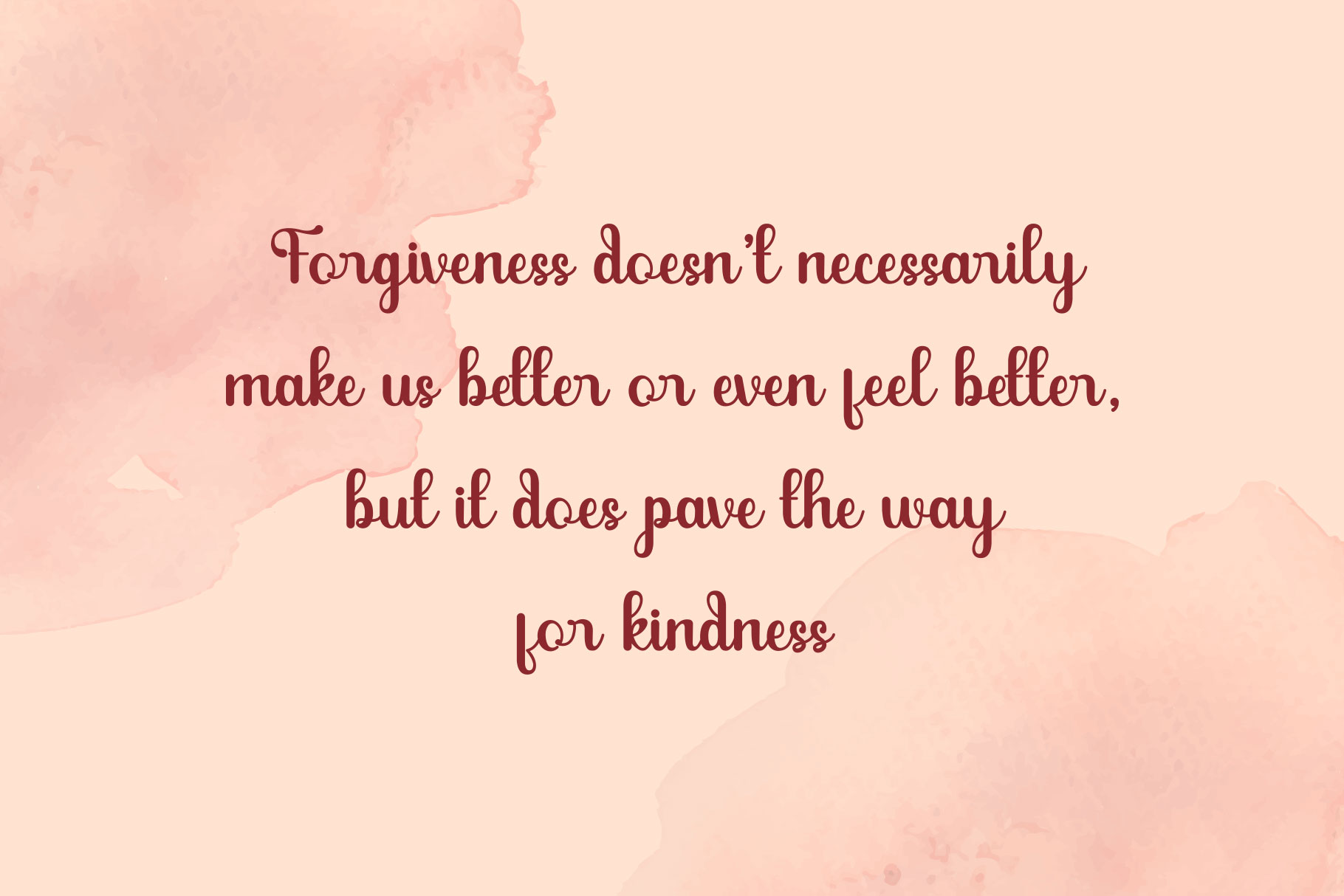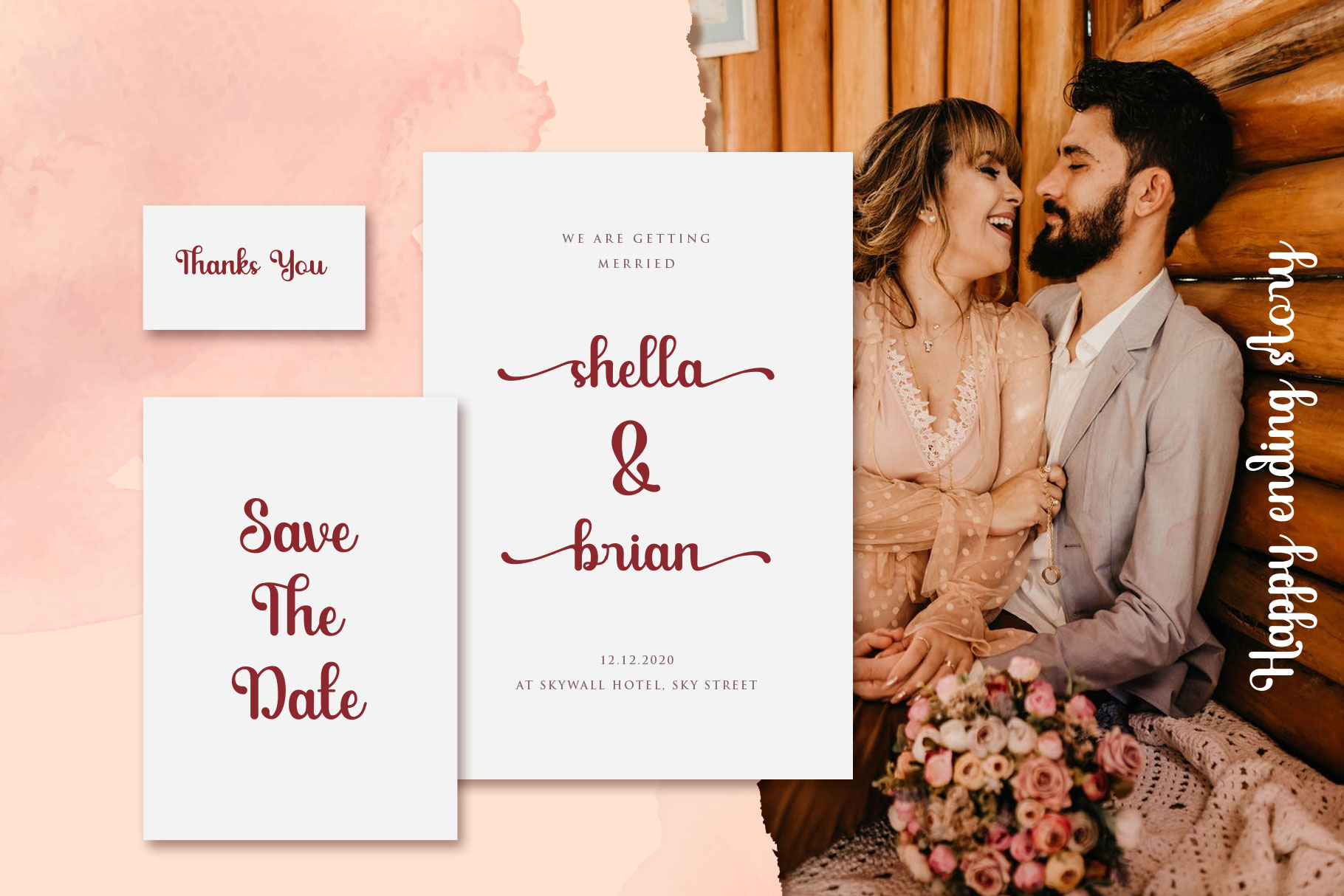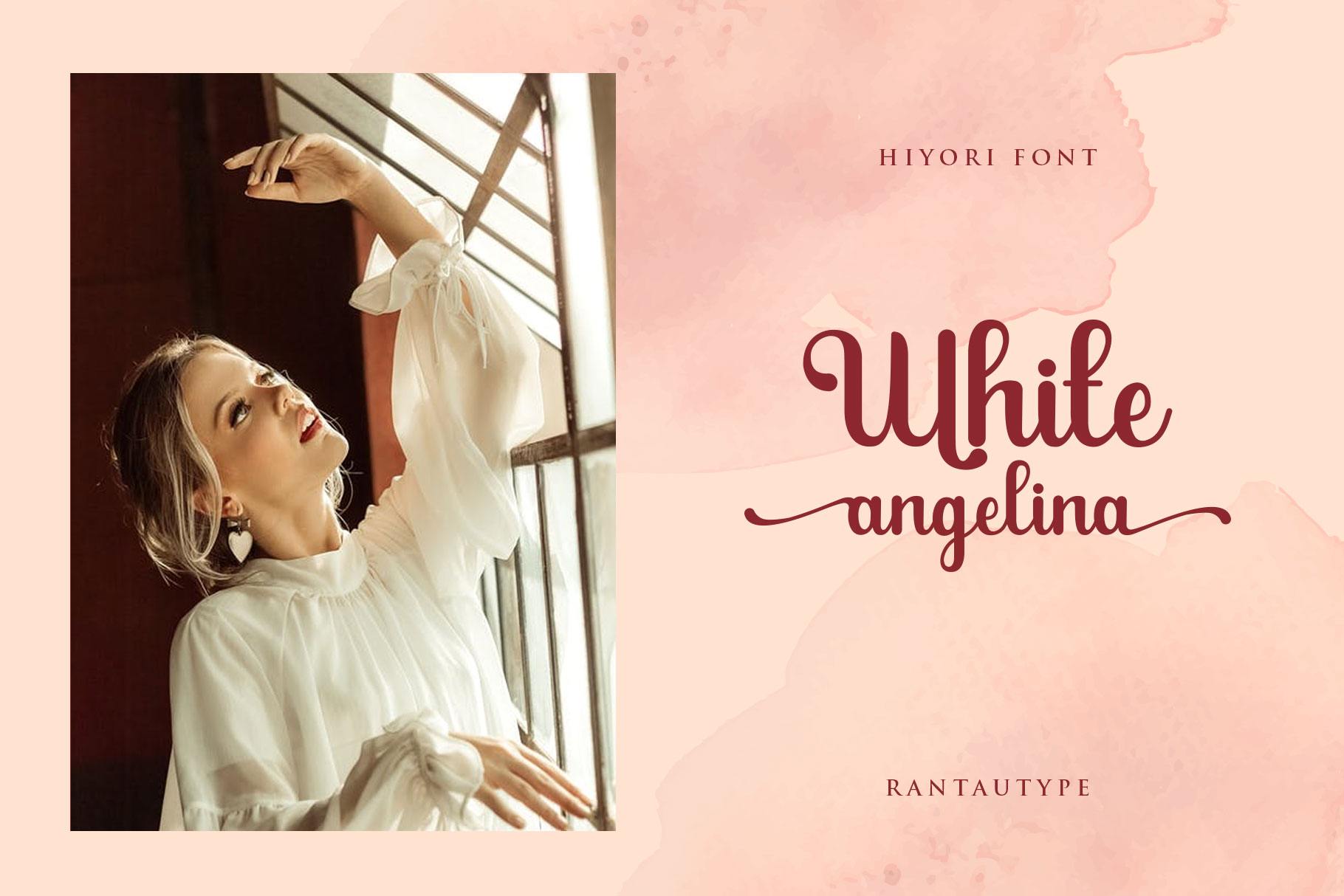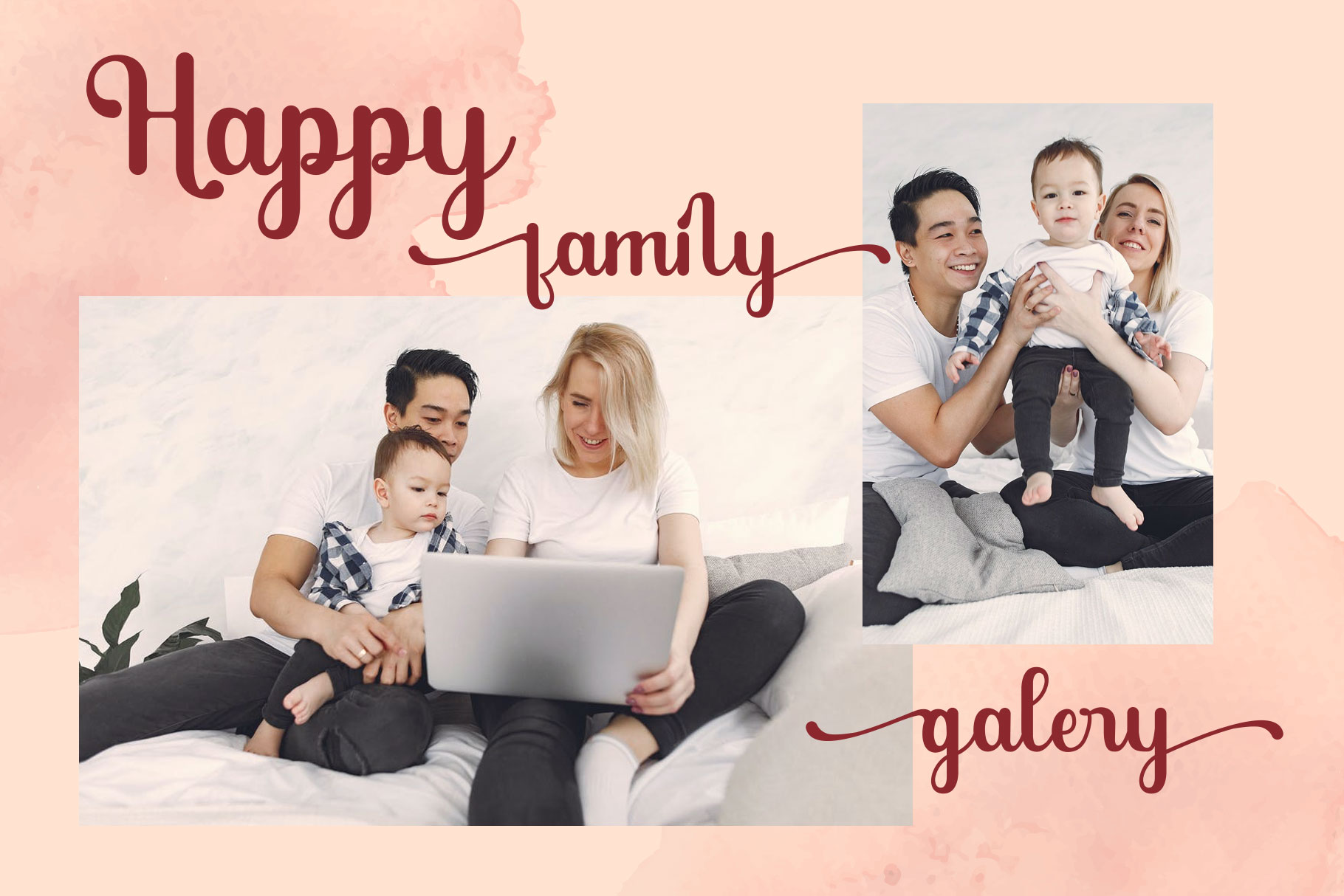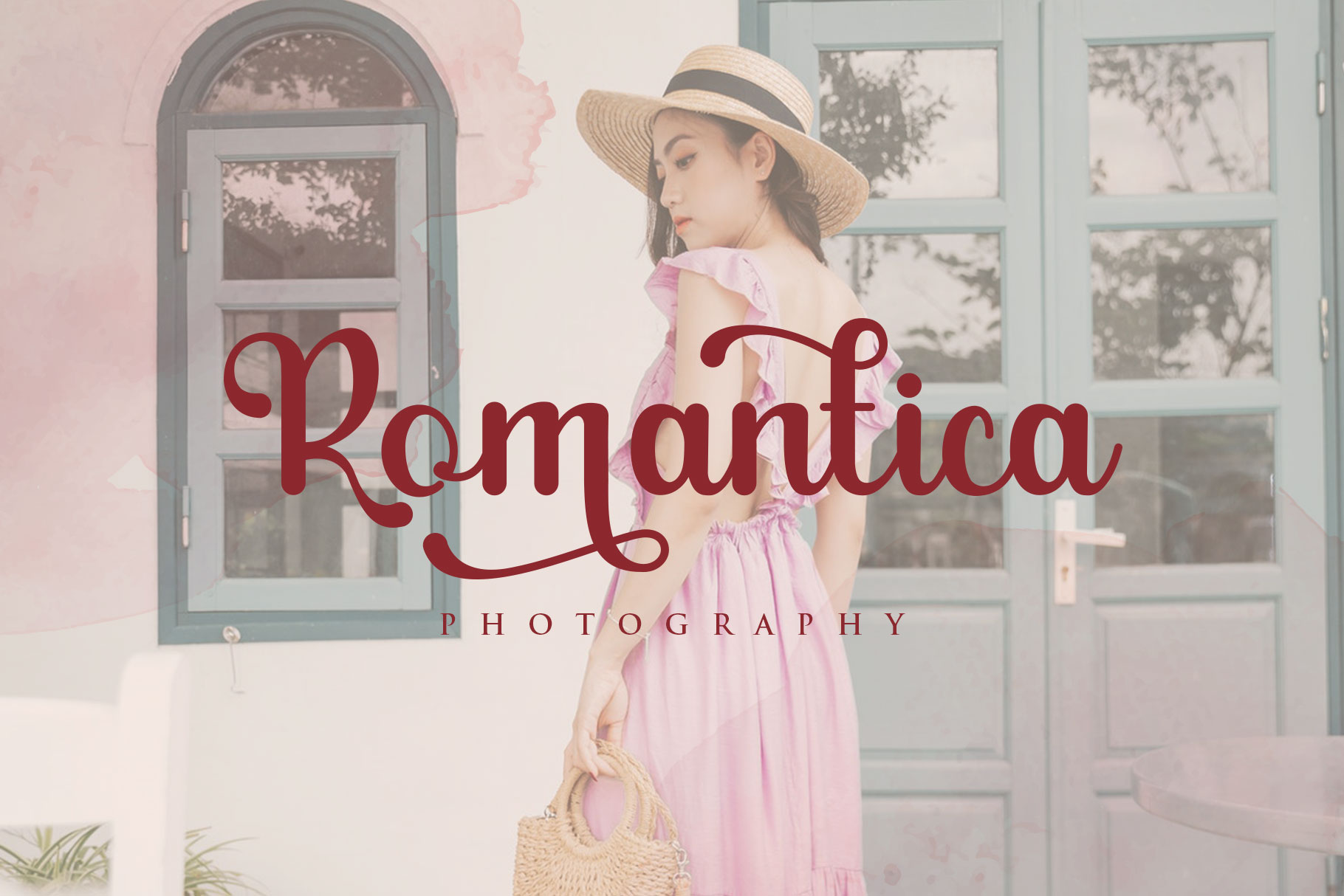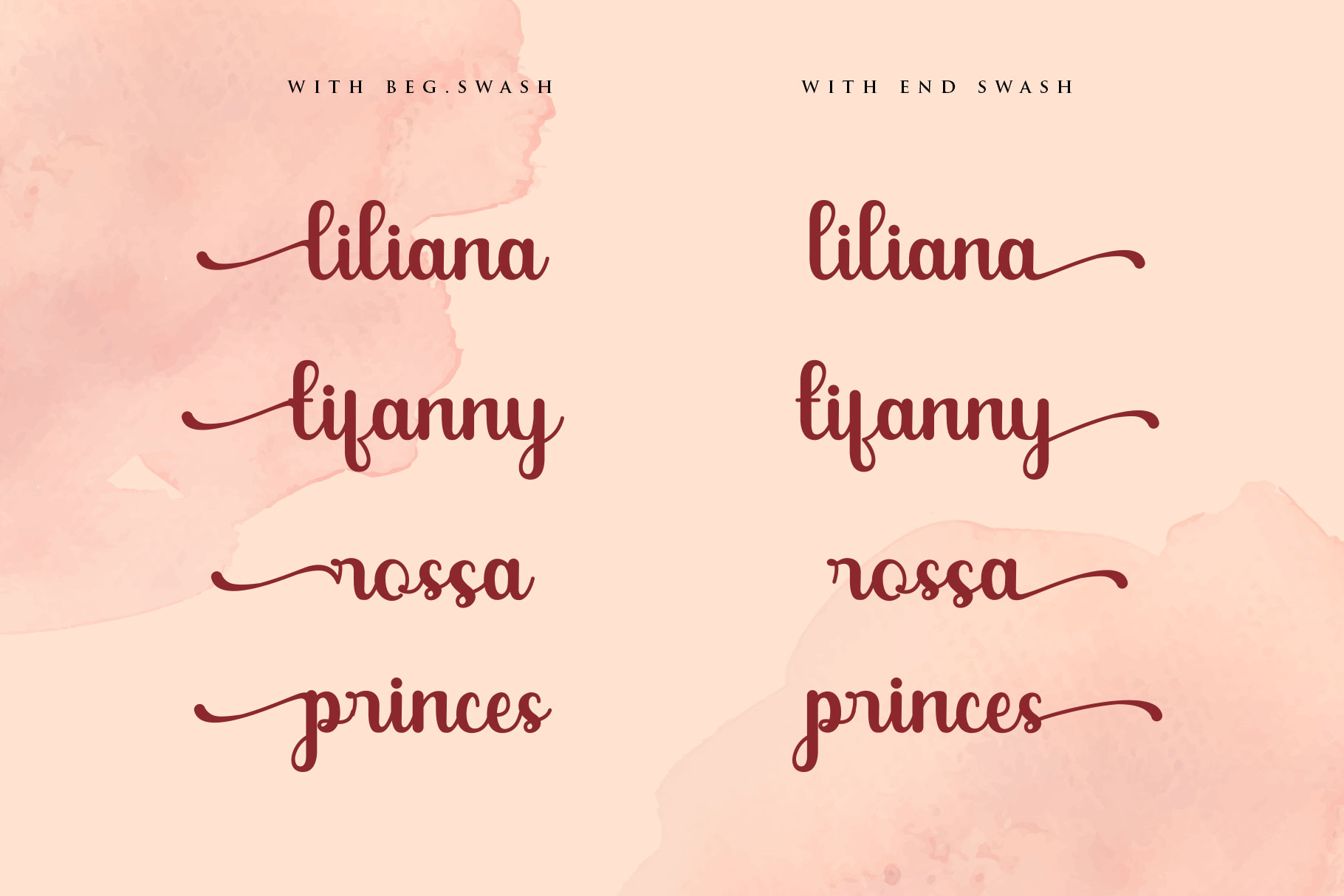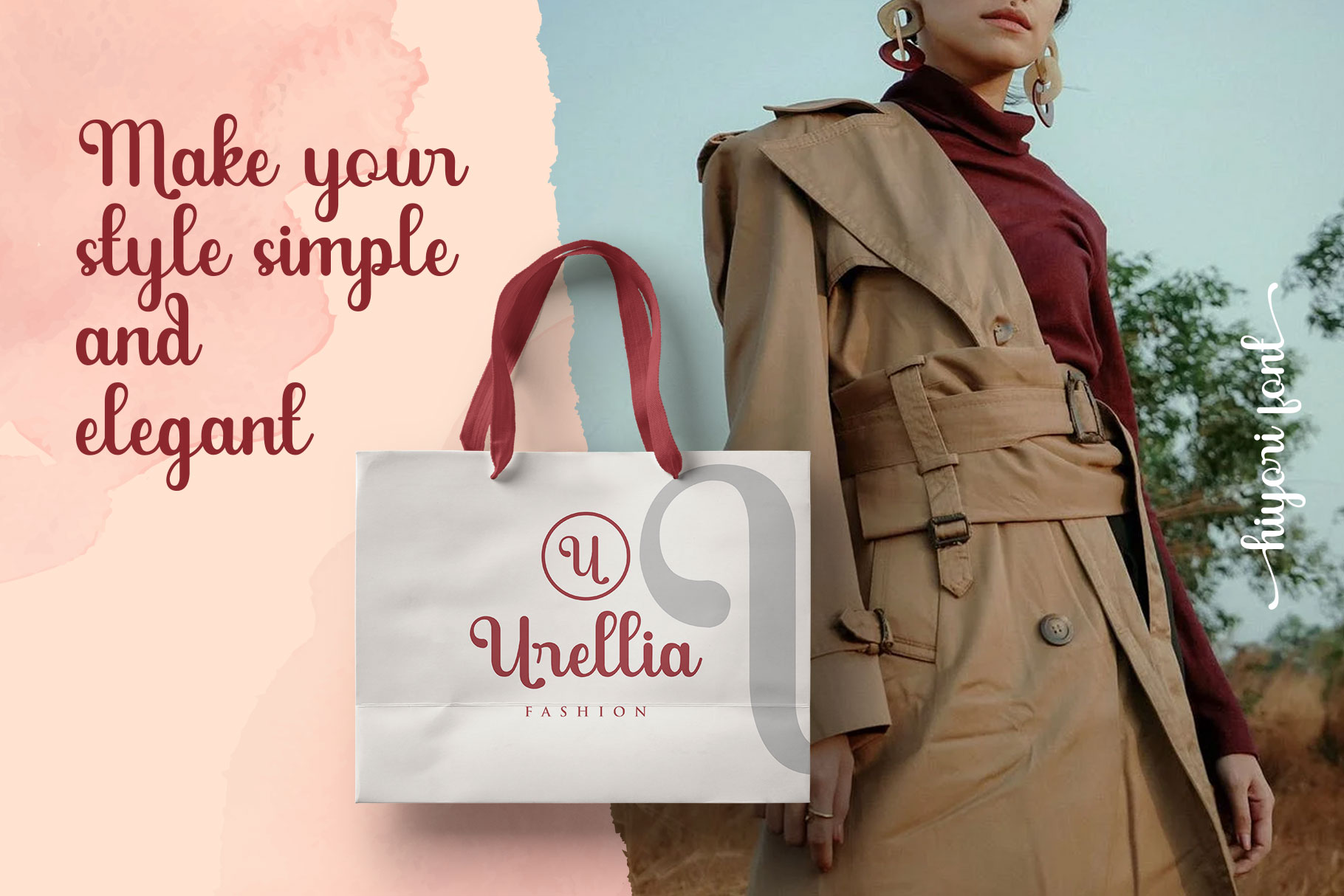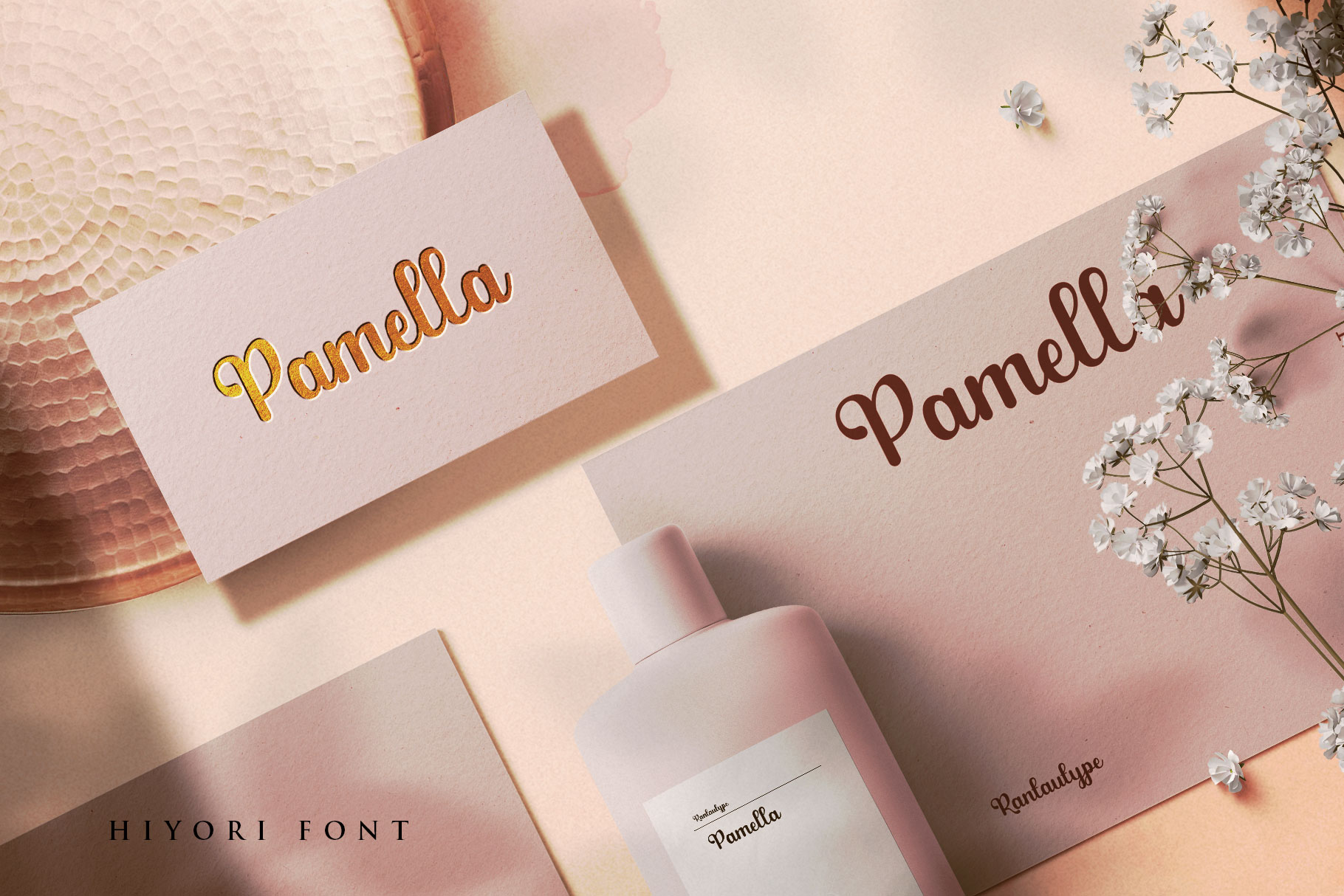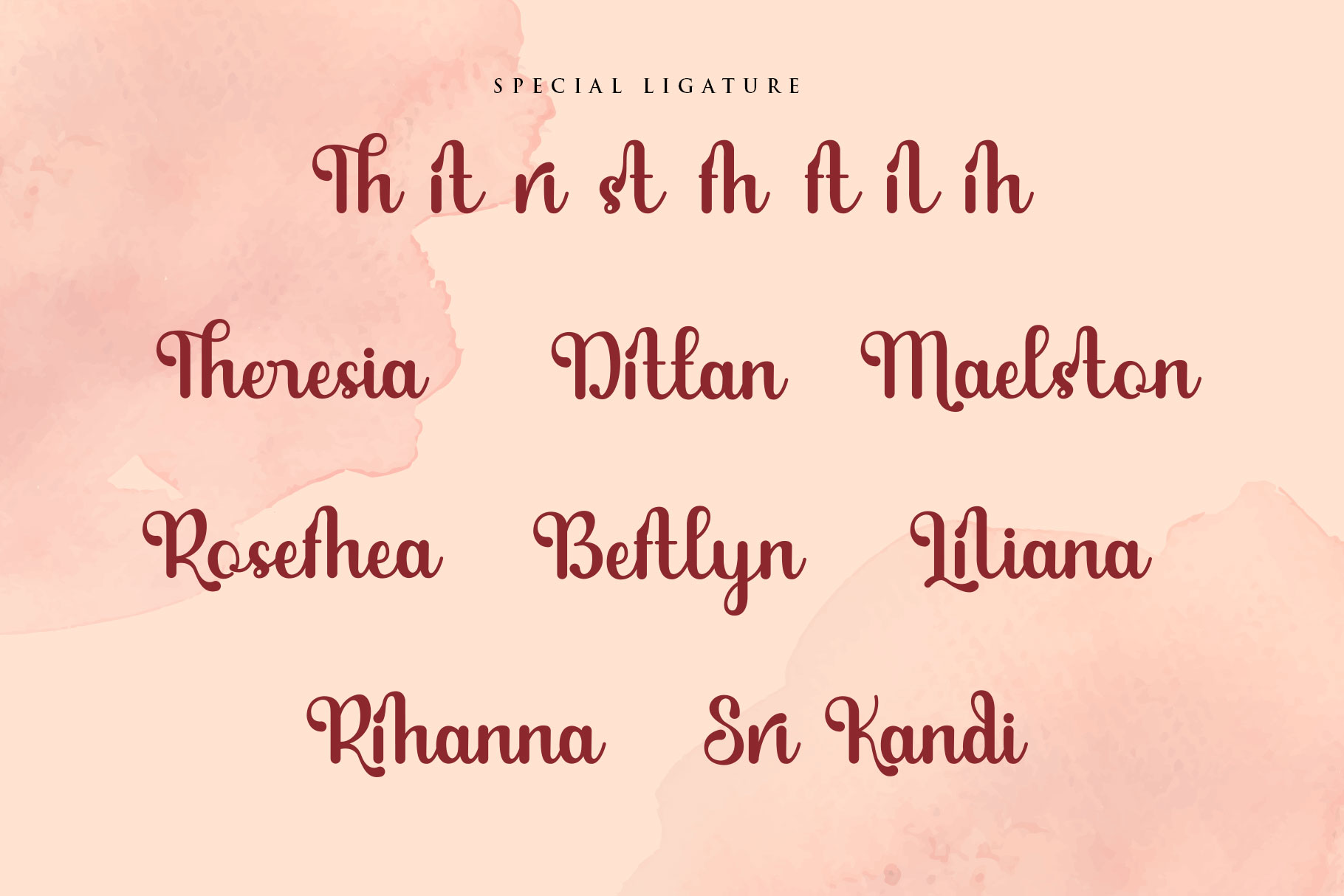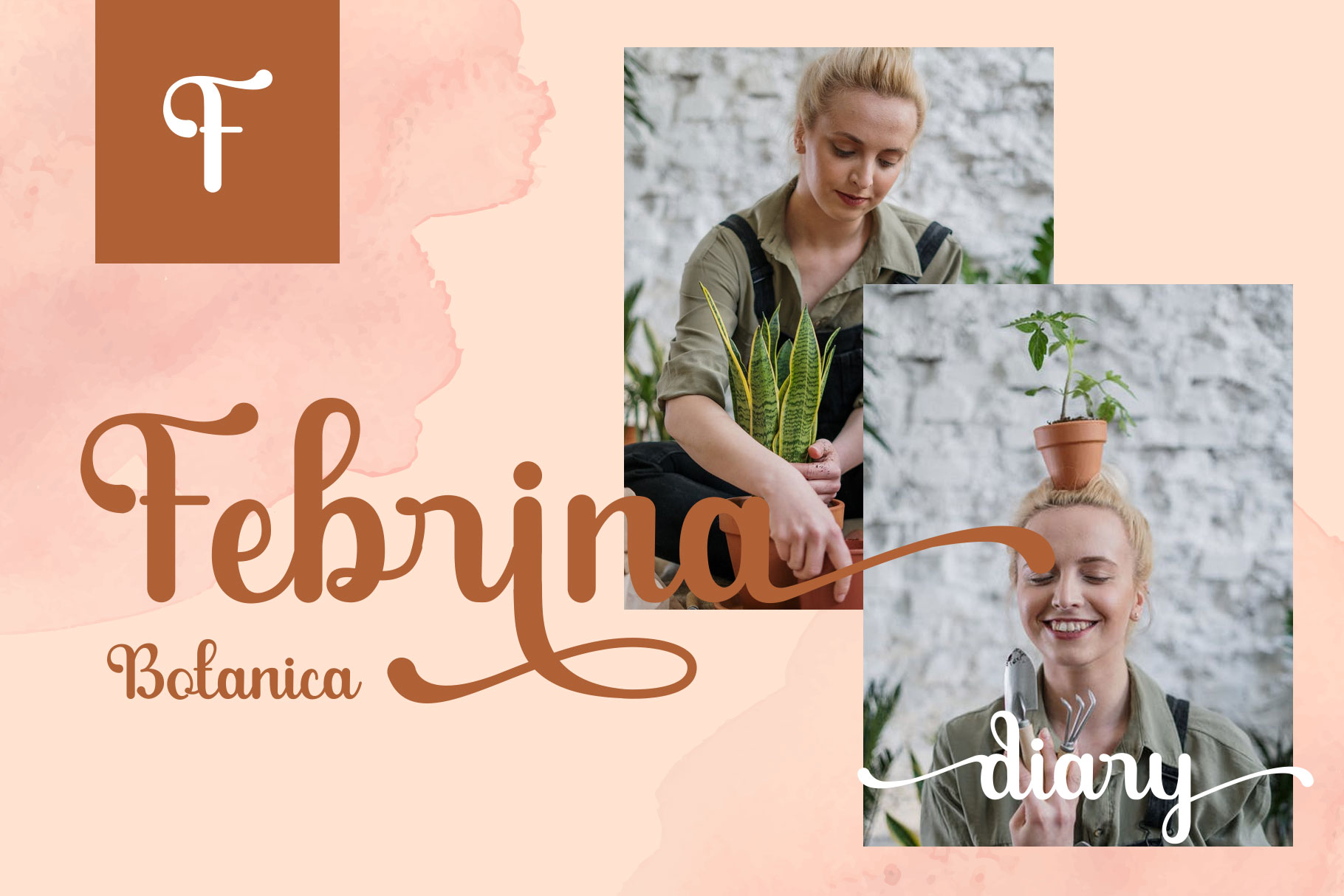
Hiyori Modern Script Font
Hiyori is Modern fontĀ  which can be interpreted professional. I keep this font looks modern, feminine, girly, catchy, simple, elegant and easy to use . Hiyori have a special ligature and i make it in different font so you can choice it. Hiyori also have more alternate with begining swash and end swash is great choice for watermark on wedding organizer, signature or signature logo design, quotes, album cover, business card and many other design project. Hiyori is here to make your work or your business to high level!!!
• Basic Character A-Z and a-z
• Alternate and Special ligature